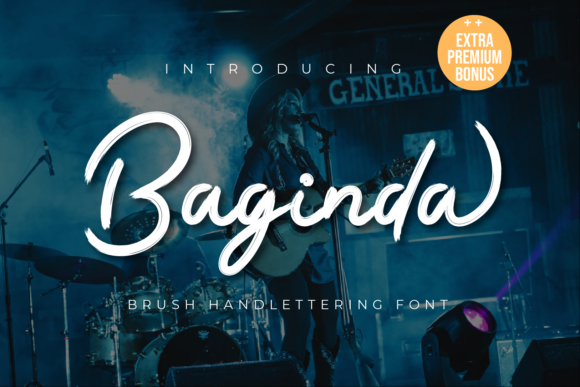
Embark on a captivating typographic journey with Baginda, a font collection that embodies elegance and charm. Prepare to be mesmerized by its enchanting curves and graceful strokes, perfect for crafting heartfelt messages and leaving a lasting impression in the world of design.
Imagine your designs adorned with Baginda's exquisite characters, sending heartfelt messages with an artistic flair. Its round, flowing letters dance across your creations, adding a touch of whimsy and warmth. Whether it's a wedding invitation, a personalized gift, or a captivating social media post, Baginda transforms words into visual masterpieces.
Step into a world where creativity knows no bounds, where the possibilities are endless, and where your designs shine with a unique charm. Baginda's versatile nature makes it a perfect companion for projects big and small. From eye-catching headlines to heartfelt love letters, its characters adapt seamlessly, adding a touch of sophistication to every word.
Experience the joy of creating with Baginda, letting its flowing script guide your imagination. Whether you're a seasoned designer or just starting, Baginda inspires you to explore new horizons and express yourself in unexpected ways. Its user-friendly format makes it accessible to everyone, allowing you to unleash your creativity without limits.
Immerse yourself in the world of Baginda, where beauty and functionality intertwine. Its carefully crafted characters bring depth and emotion to your designs, captivating audiences and leaving a lasting impact. Let your creativity soar as you discover the endless possibilities that await you with this remarkable collection.